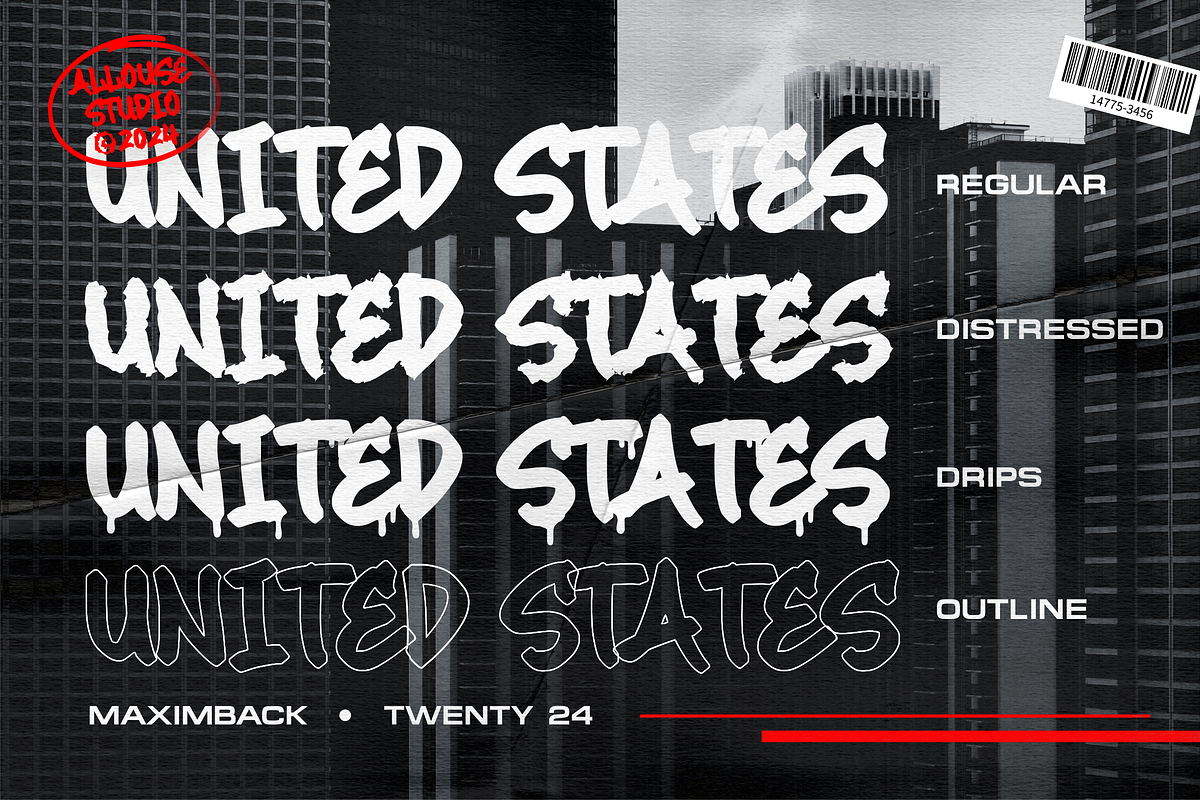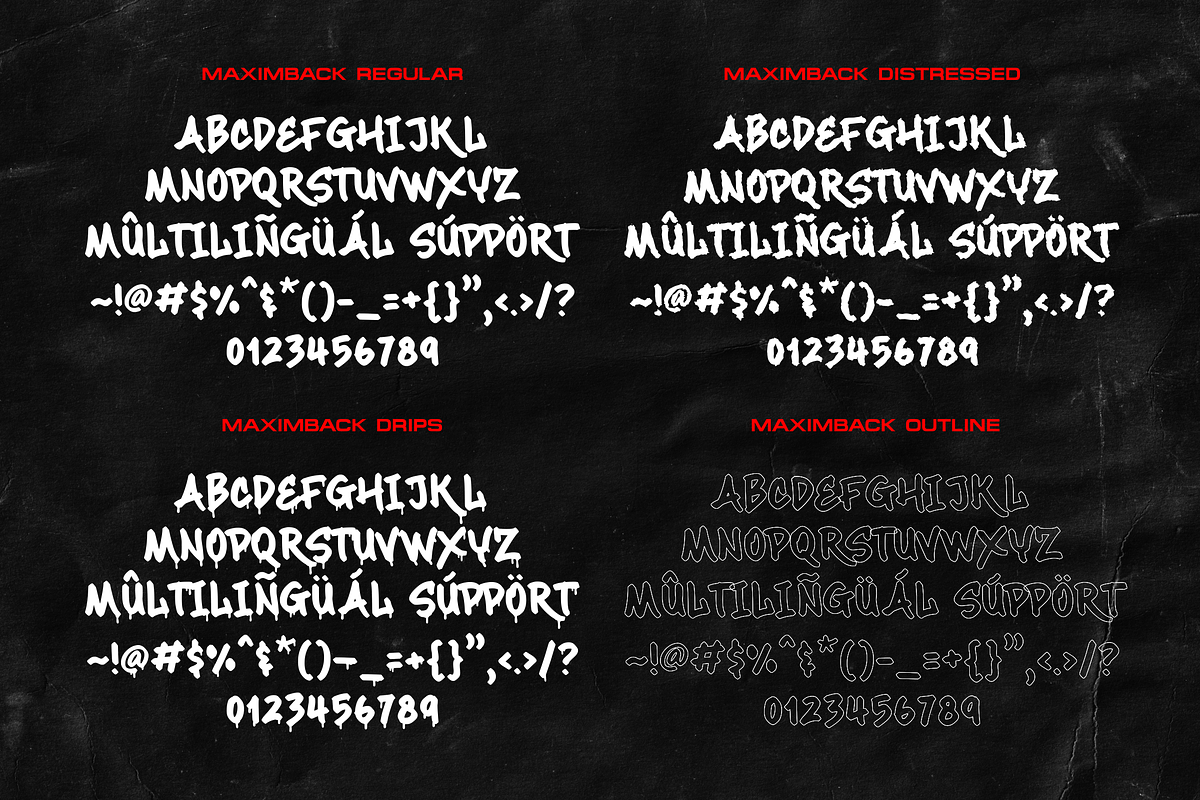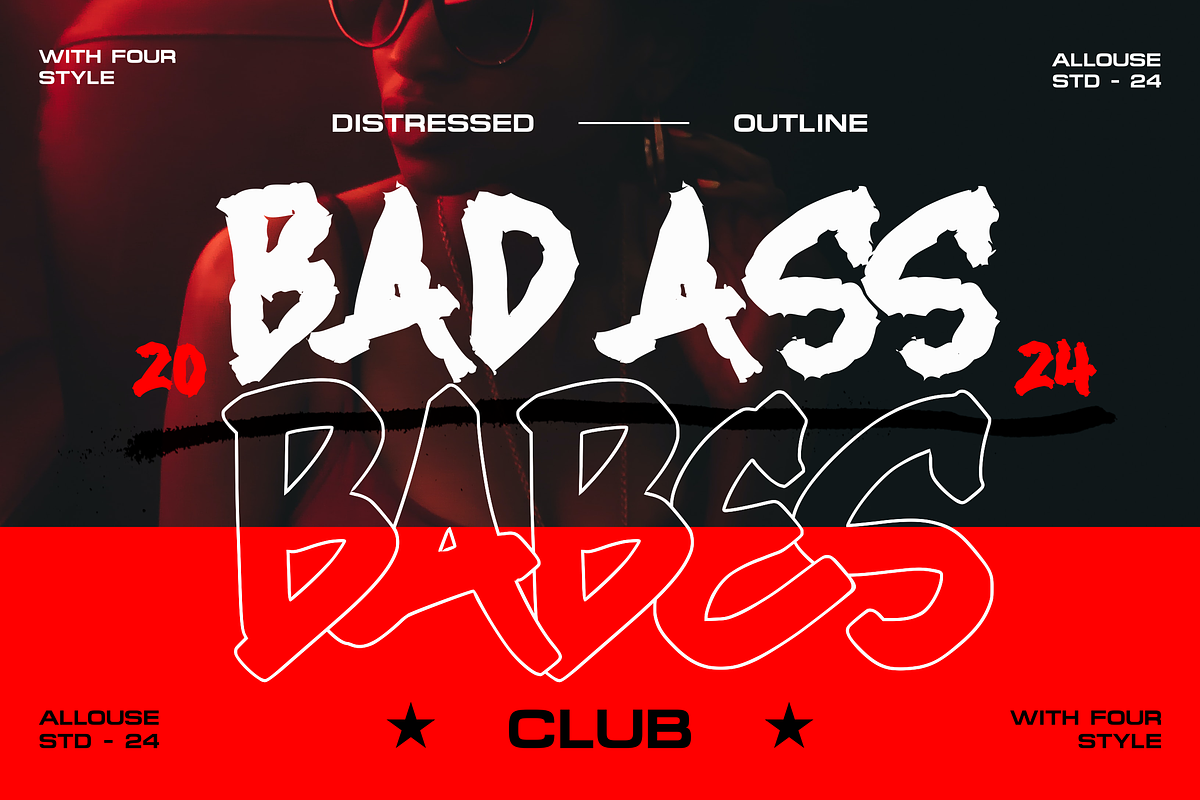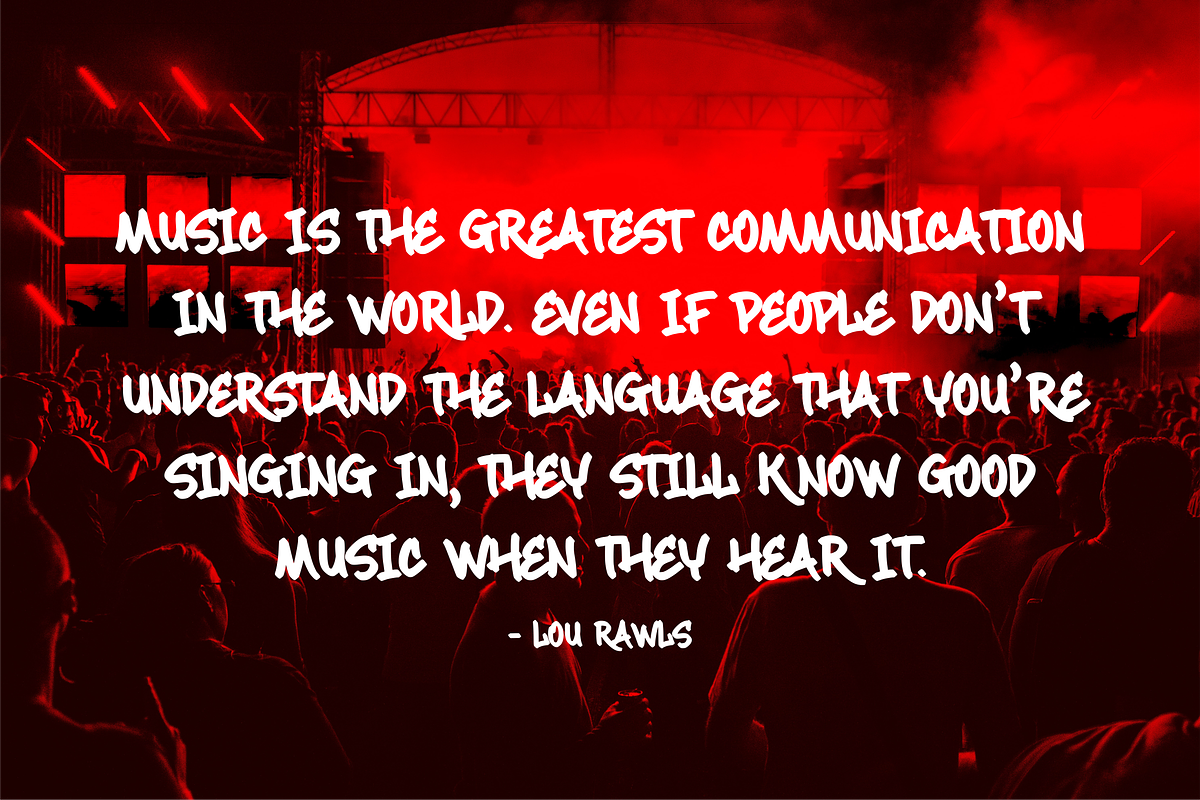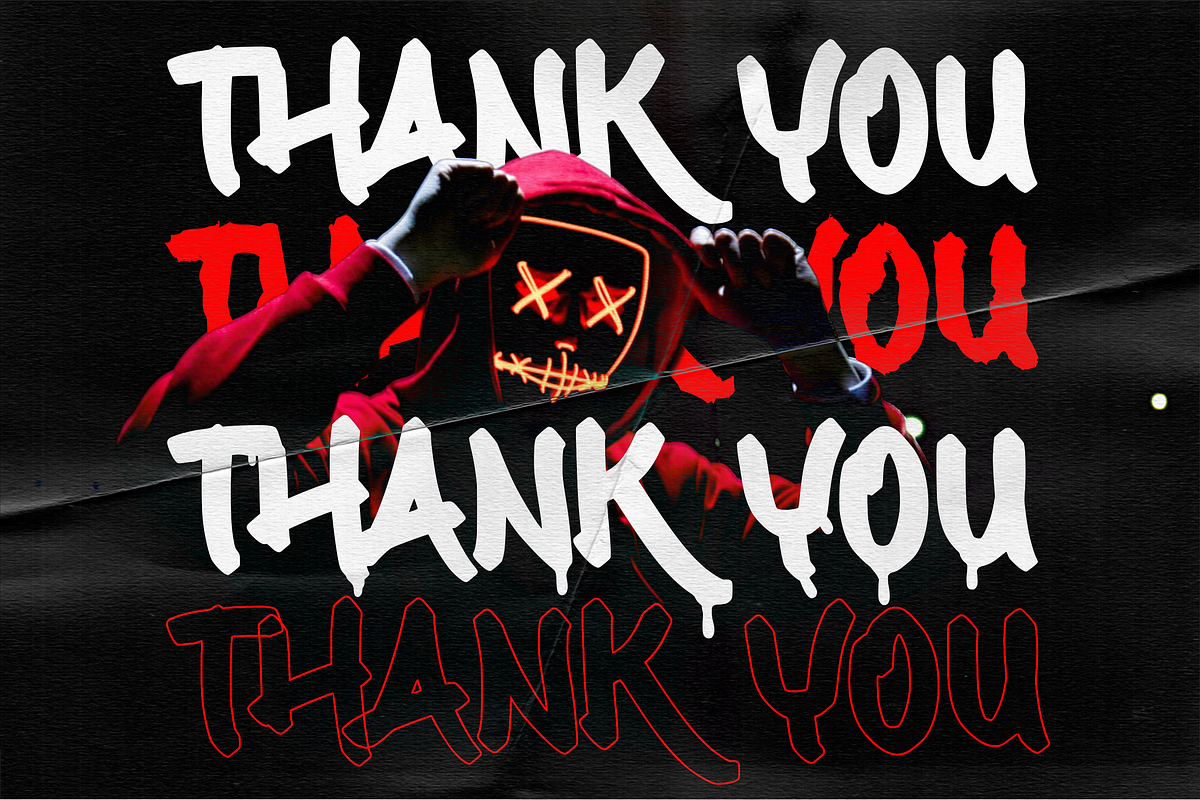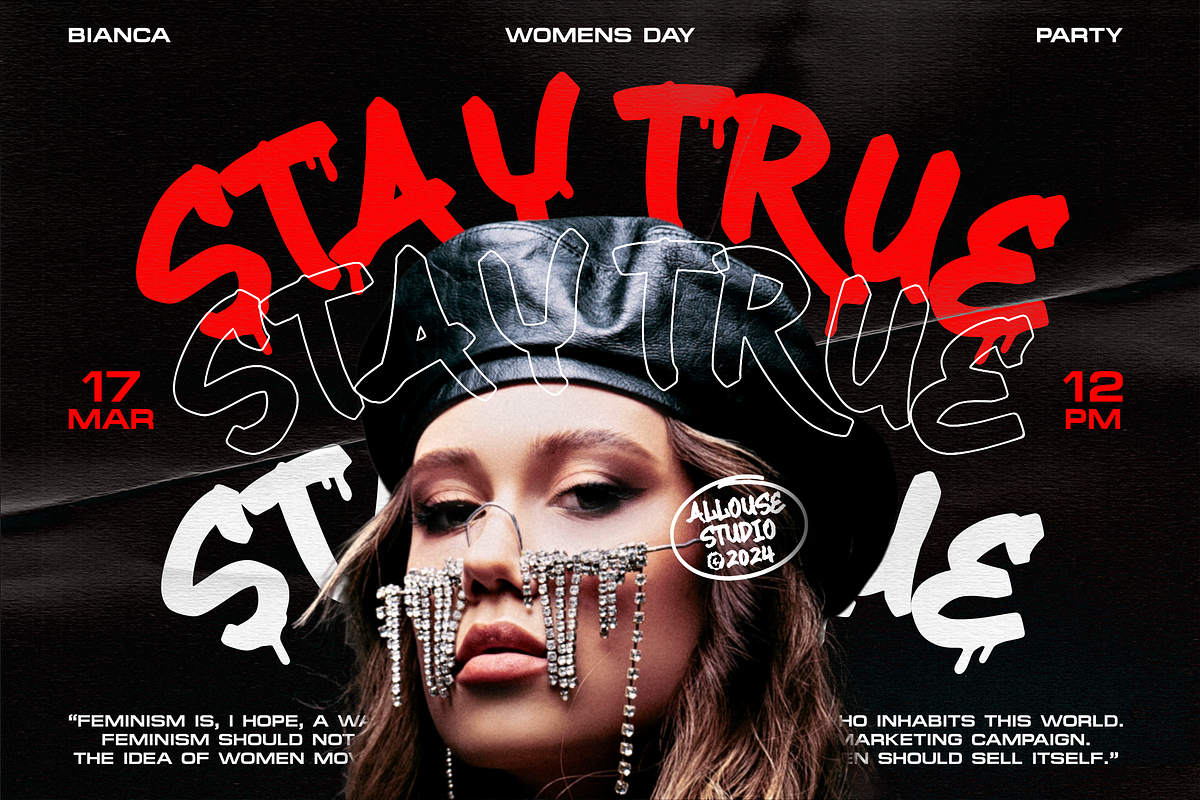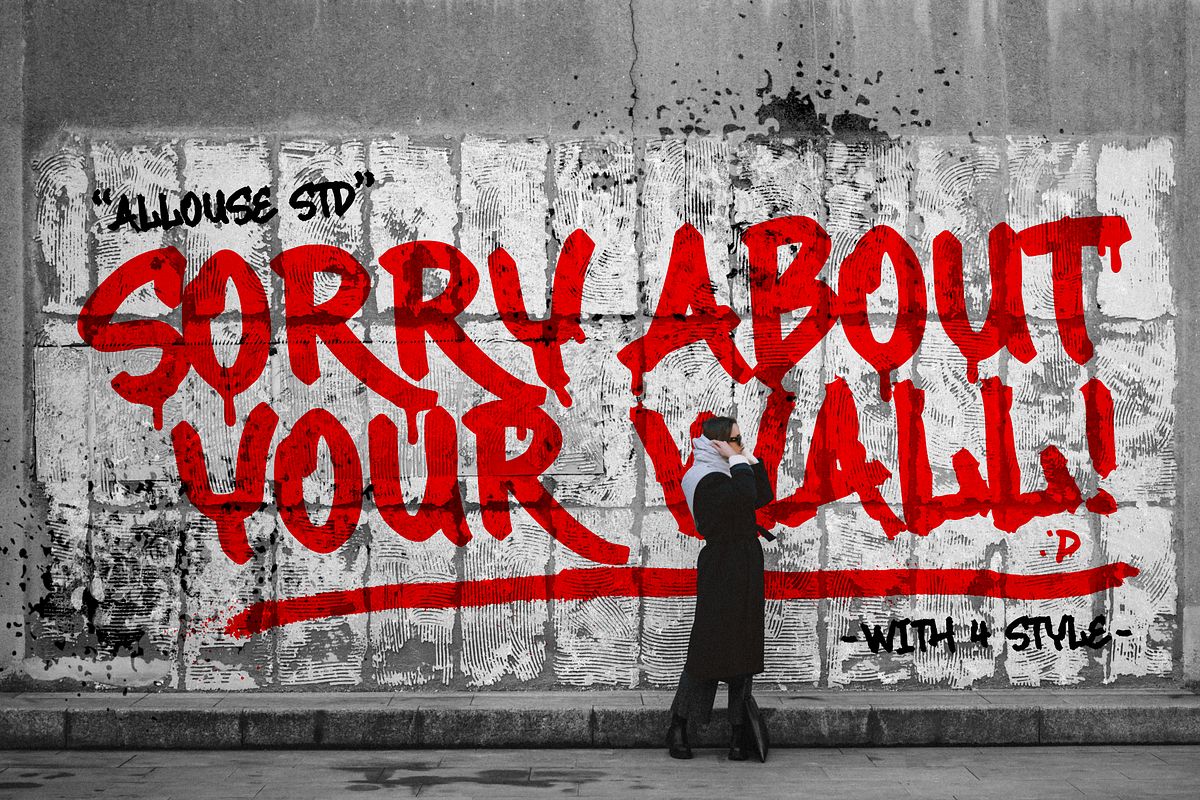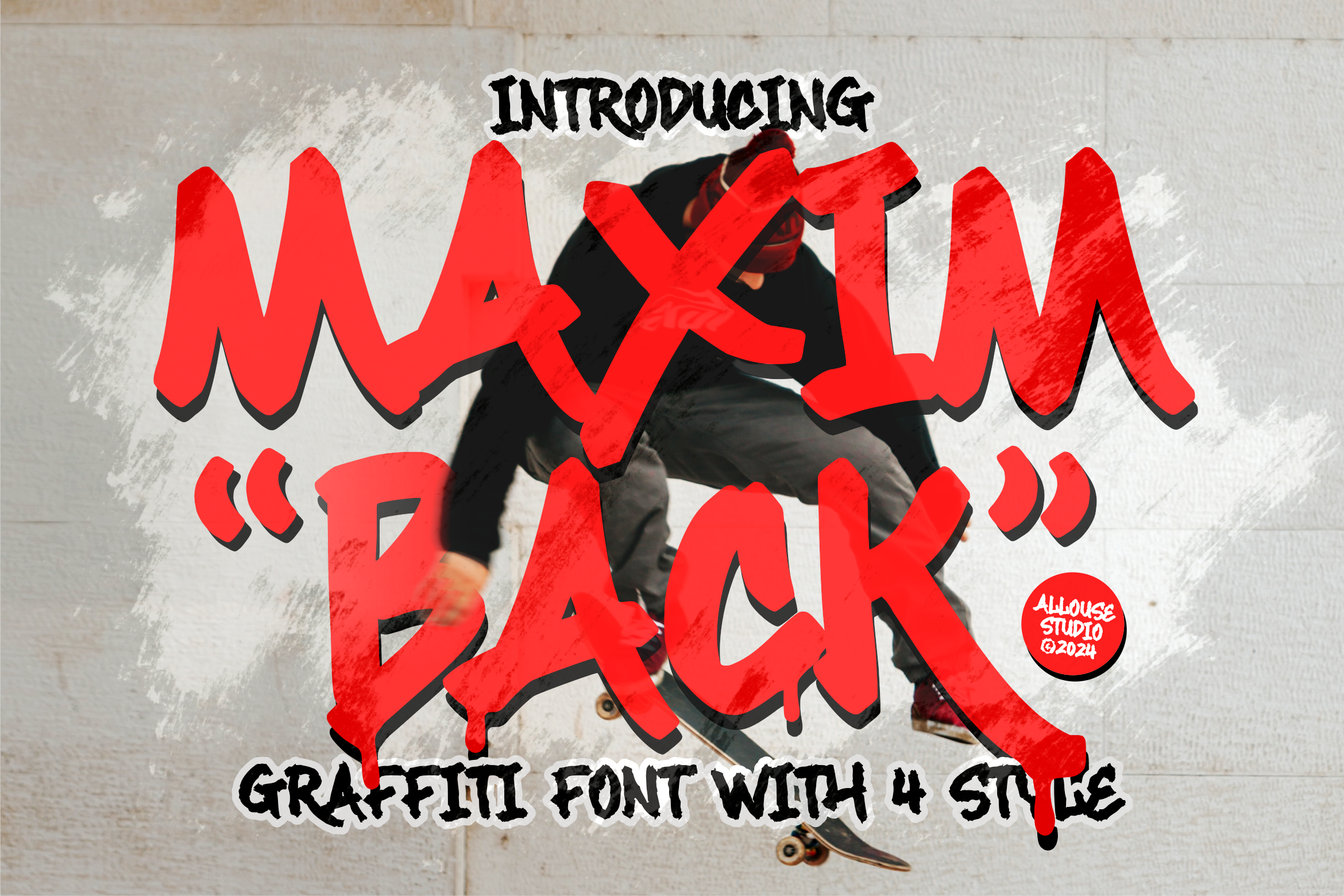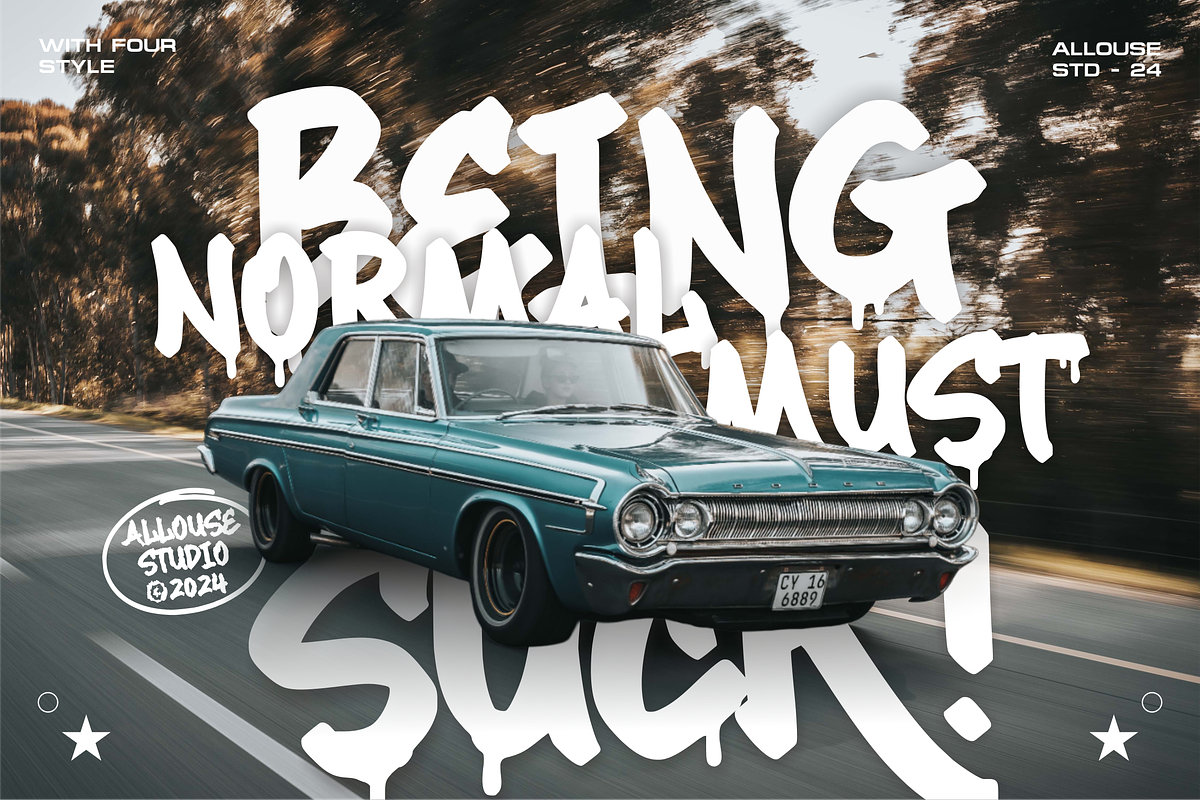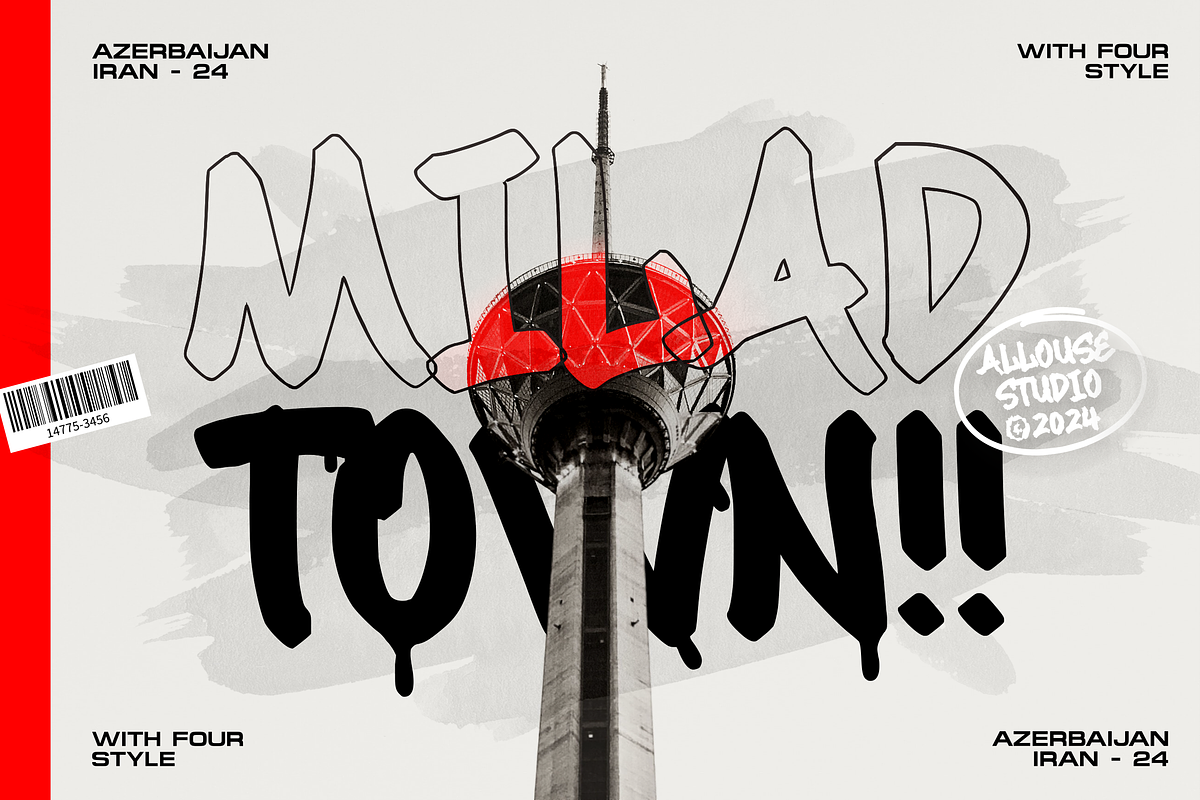
Maximback A Bold Graffiti Font
Proudly Present, Maximback A Bold Graffiti Font With Four Styles.
Maximback is perfect for any titles, logo, product packaging, branding project, megazine, social media, wedding, or just used to express words above the background.
Maximback come with Multi-Lingual Support.